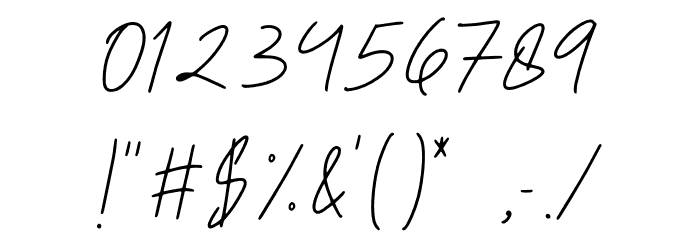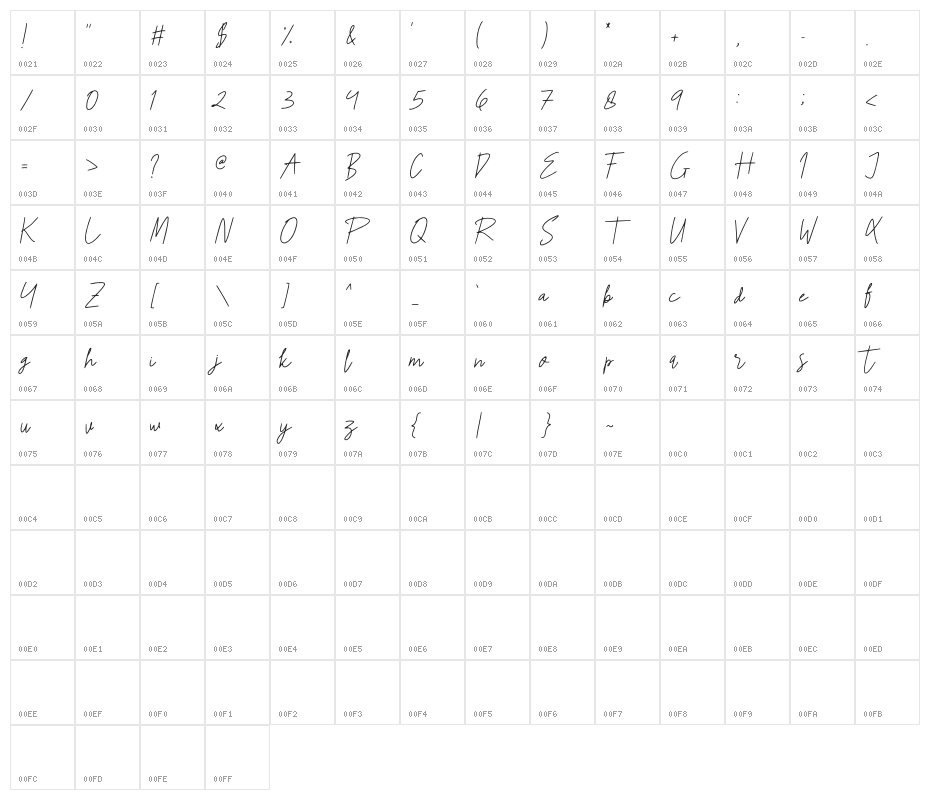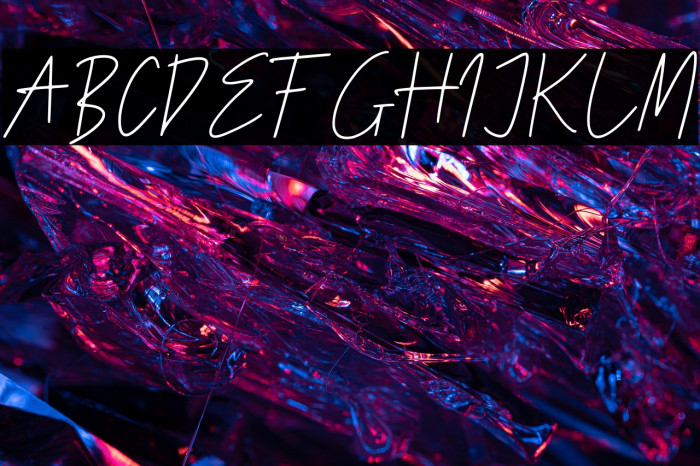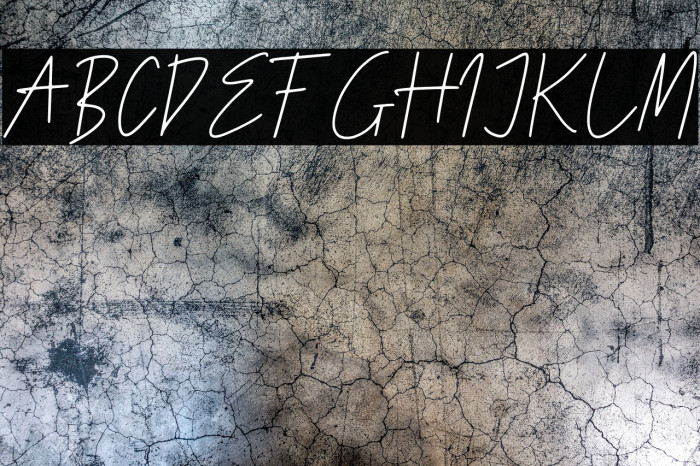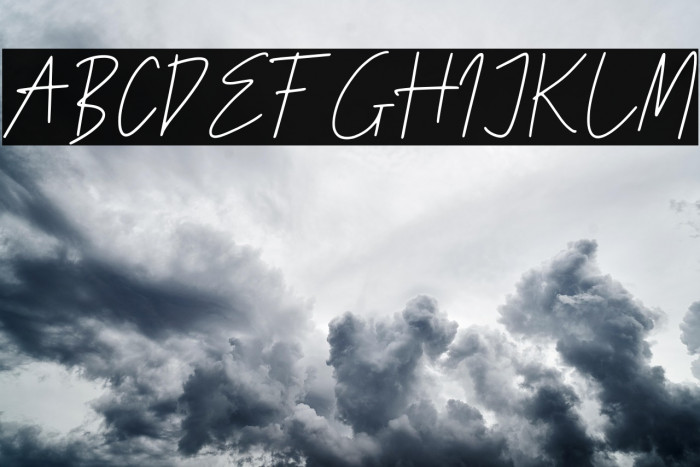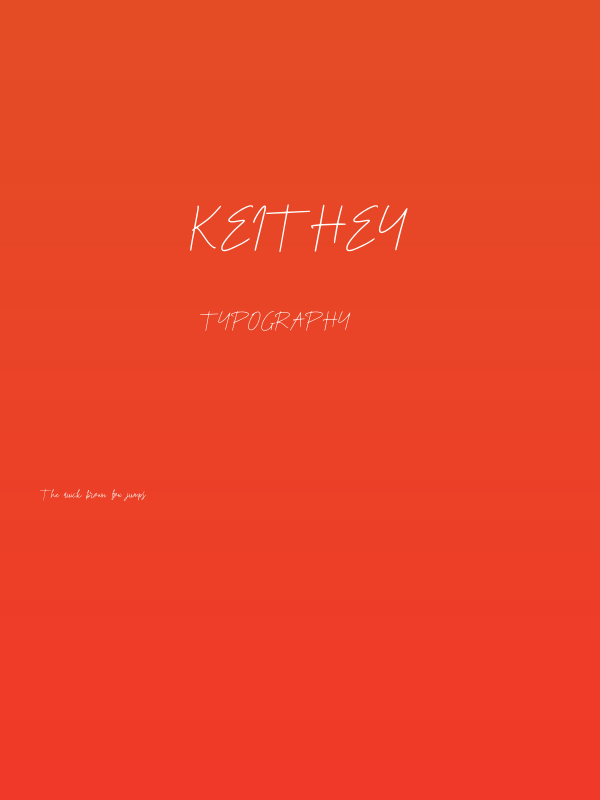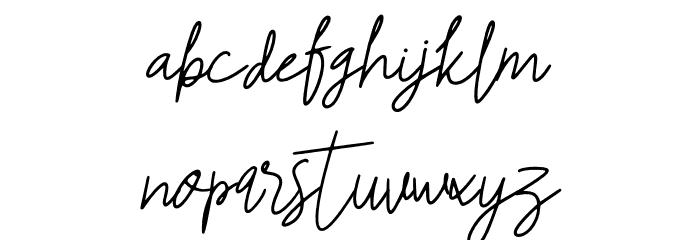
Keithey Font
This font features a handwritten style that exudes a casual and personal touch. The uppercase letters are tall and slightly slanted, giving a sense of movement and fluidity. The lowercase letters are more connected, resembling cursive handwriting, which adds to the font's charm and approachability. The numbers and special characters maintain the same handwritten aesthetic, ensuring consistency throughout. The overall appearance is elegant yet informal, making it suitable for projects that require a personal or creative flair.
Overall StyleCasual, Elegant
Use CaseLogos, Invitations, Personal Branding
Proposed ProjectsIdeal for greeting cards, personal branding, invitations, and creative projects that require a personal touch.